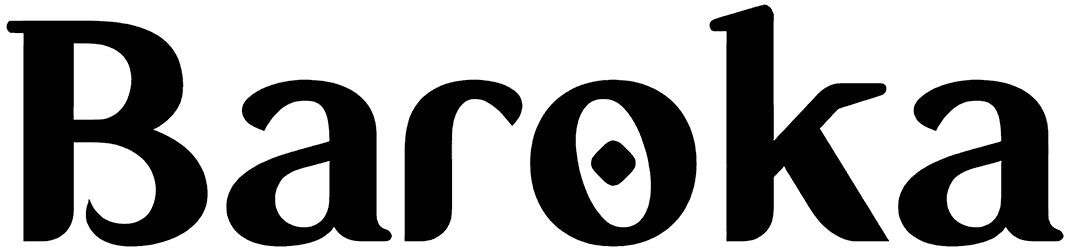
Baroka Font
Invite the classic allure of Baroka to your work of art and let it make sure everyone in your audience is hooked. This serif font can easily solve your problem whenever you want to take a look back at the old days in your design.
Don’t get us wrong. It’s not going to turn out anything boring or outdated. In fact, this elegant font knows how to keep things entertaining while getting your message across, nice and simple!